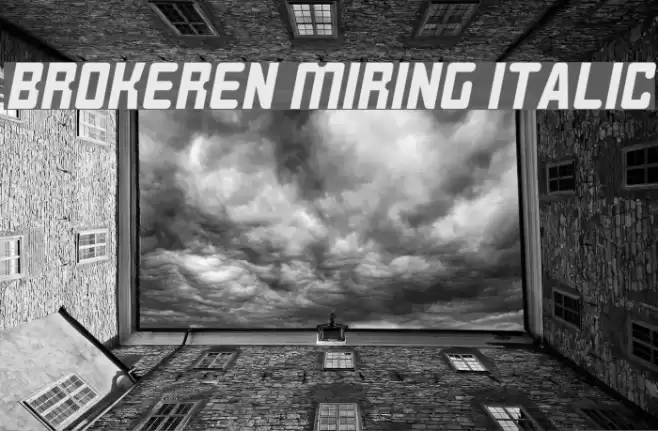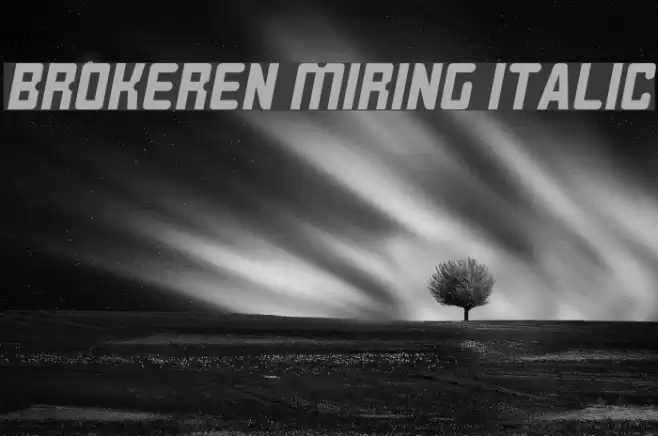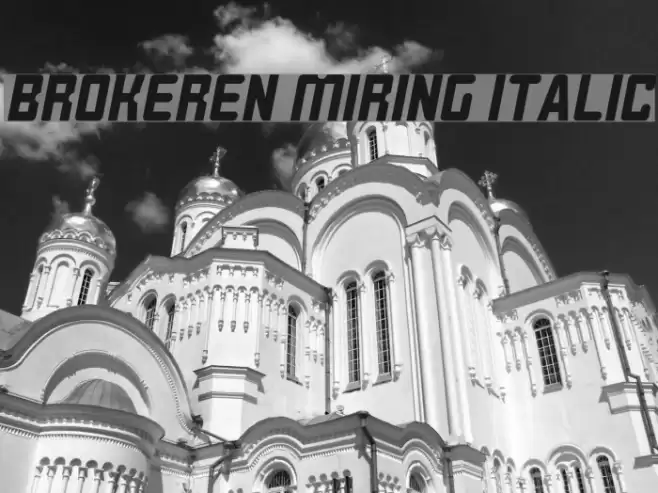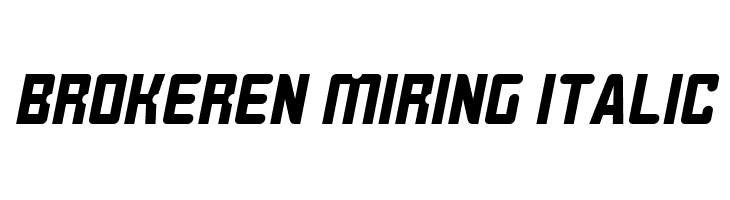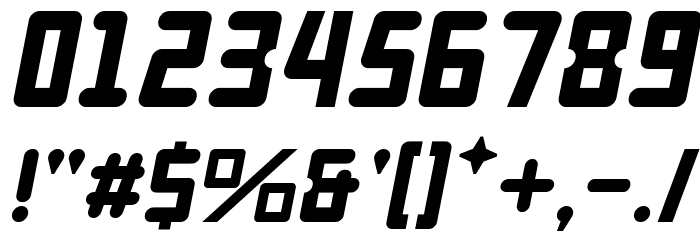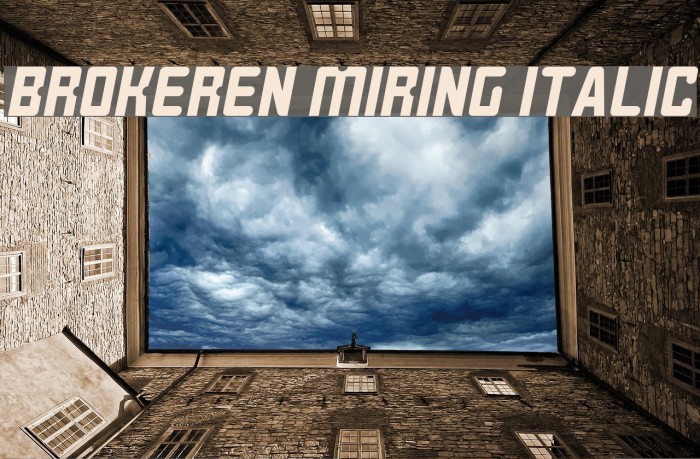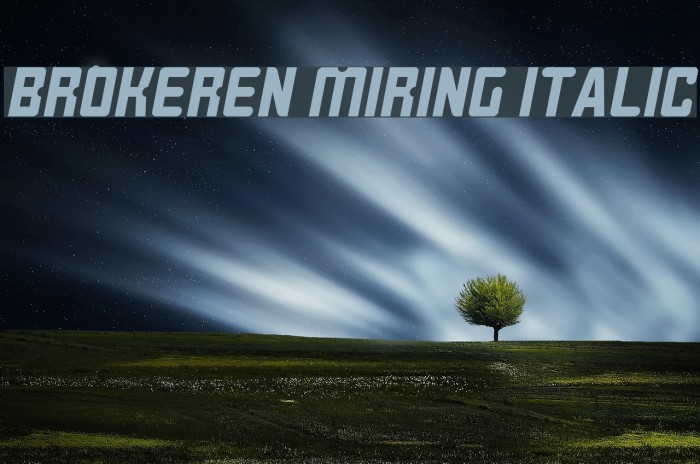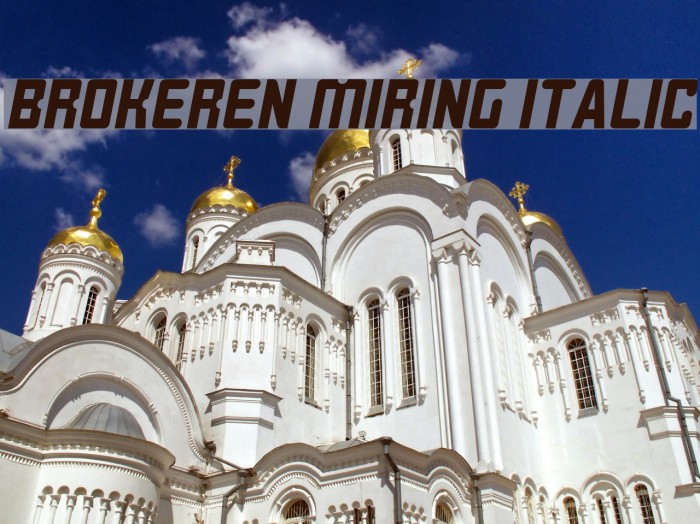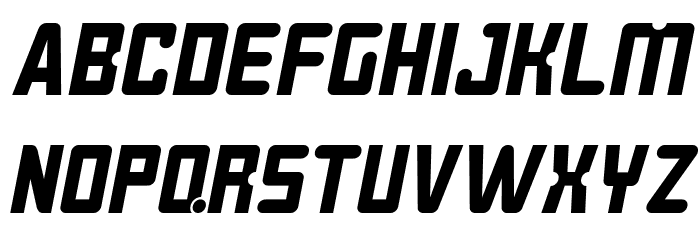
BROKEREN MIRING Italic Font
BROKEREN MIRING Italic Description
This font features a bold, italicized style with a modern and dynamic appearance. The characters are slightly slanted, giving a sense of movement and energy. The strokes are thick and consistent, providing a strong visual impact. The overall design is clean and geometric, with rounded edges that soften the boldness. This font includes a full set of uppercase and lowercase letters, numbers, and a variety of special characters. The spacing between characters is normal, ensuring readability while maintaining its bold presence.
A bold, italicized font with a modern, dynamic style from Uncategorized fonts.
- Proposed Projects: Ideal for sports branding, dynamic posters, and modern advertising campaigns.